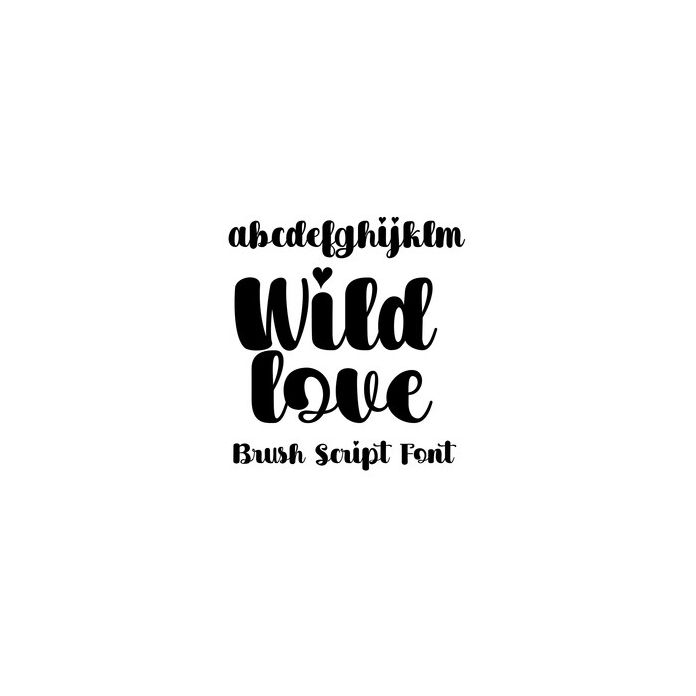
Wild love Bold The large handwriting style is beautiful and clear, this is a genuine handwritten product, so it is used uniformly in today's design models. You can see and match with your big imagination!